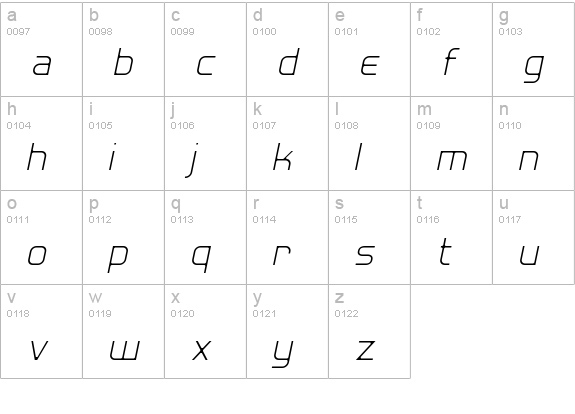
Hall Fetica font is a stunning display typeface that exudes elegance and sophistication. With its delicate curves and intricate details, this font is perfect for adding a touch of finesse to your designs. Whether you're working on a branding project, wedding invitations, or any other creative endeavor, Hall Fetica font will elevate your work to the next level. The best part? Hall Fetica font is absolutely free to download at FontsMarket.com. Embrace the beauty and versatility of this exquisite font without any cost. Don't miss out on this fantastic opportunity to enhance your designs with Hall Fetica font today!